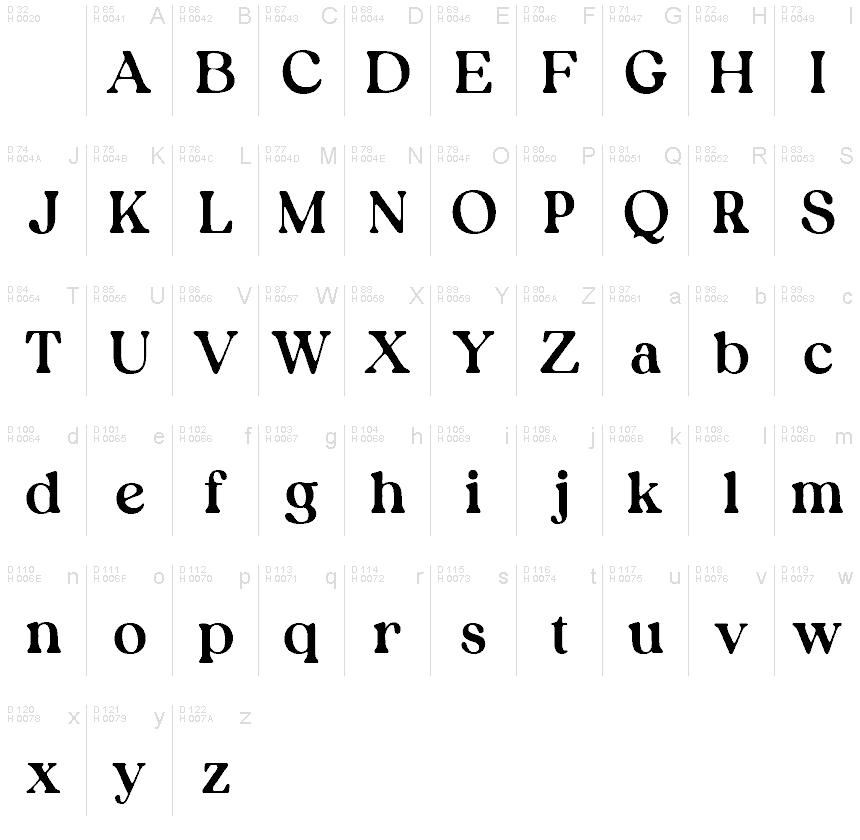
CaliveDrawn-Regular Demo
Calive font by Craft Supply Co. is a stunning classic serif whose timeless elegance allows for versatile applications. It draws inspiration from traditional influences which appear in its refined, elegant, and sophisticated letters. Application varieties are wide with this design as presented in the the twelve use case inspirations below.
Display Calive on magazines, book covers, social media projects, videos and animations titles, posters, flyers and leaflets for events promotion or other ideas by including it in branding or packaging as well.